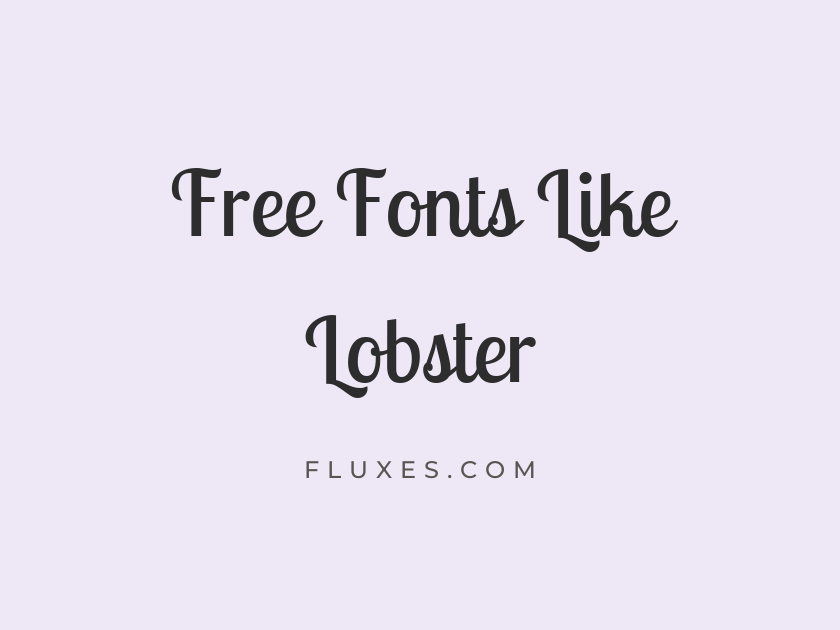
15 Best Free Fonts Similar to Lobster
Lobster became one of the most downloaded typefaces on Google Fonts for a reason: that bold, glossy, retro script feel works everywhere from coffee shop signage to wedding invitations to logo design. Its popularity is also its drawback. When a font shows up on every taco truck menu and Etsy banner, a project starts to look like everyone else’s. Finding free fonts similar to Lobster means looking for that same confident, connected script energy, the rounded retro warmth, without reaching for the exact same file every designer already has open.
The alternatives below cover a range of moods, from casual brush scripts to bold display faces with the same diner-sign charisma, so you can swap in something with a little more personality for your next project.
Lobster Two
The obvious place to start is the font’s own sibling. Lobster Two was drawn by the same designer, Pablo Impallari, with a slightly more refined, less blobby letterform structure and genuine italic and bold styles built in. If you love the original’s personality but need more flexibility across weights, this is the closest thing to a direct upgrade rather than a true alternative.
Pacifico carries the same sun-bleached, mid-century American vibe as Lobster but leans lighter and looser, originally inspired by 1950s surf culture signage. It reads friendly rather than heavy, which makes it a smart pick for branding that wants warmth without quite as much visual weight on the page.
Yellowtail is probably the nearest match in spirit: a bold, connected script with the same confident swing and rounded terminals. It sits a touch narrower and more casual than Lobster, which can actually make long headlines easier to fit into tight banners or product labels.
There’s an energetic, brush-pen looseness to Kaushan Script that gives it a more spontaneous, sign-painter feel than Lobster’s polished curves. It works well for anything that wants to feel handmade rather than manufactured, from bakery branding to event flyers.
Satisfy is lighter on the page and a little more relaxed, closer to genuine handwriting than a designed script. It won’t carry the same punch as Lobster in a big hero headline, but it pairs nicely as a secondary accent font under a bolder display face.
Rounded, soft, and slightly wobbly in the most charming way, Courgette feels like a cousin to Lobster that skipped the gym. It suits cozy, home-cooked branding, think farmhouse cafes and small-batch food labels, where a friendlier, less glossy script feels more honest.
Leckerli One
Leckerli One trades connected script strokes for a bold, bouncy, candy-shop letterform that still nods to the same retro playfulness. It reads clearly even at smaller sizes, which is where true script fonts like Lobster often start to blur.
Caution is worth a note here: like Lobster, several of these bold or connected scripts can turn muddy in body text or tiny UI labels. Save them for headlines, logos, and short punchy phrases, and let a clean sans-serif carry the paragraphs.
Grand Hotel has a vintage postcard quality, all curling flourishes and old Hollywood glamour. It shares Lobster’s nostalgic pull but points toward a more elegant, 1930s resort feel rather than a diner counter.
Merienda
Merienda in its bold weight is chunky and rounded in a way that echoes Lobster’s density, but the letterforms feel more compact and toy-like. It holds up nicely in badges, stickers, and packaging where you need a script that survives being shrunk down.
Sriracha has a marker-drawn casualness with just enough weight to hold a headline together. It skews playful and street-food friendly, a solid pick when Lobster feels a bit too smooth and corporate-safe for the brand.
Bad Script
This one leans fully into imperfect, ballpoint-pen handwriting rather than a designed script face. Bad Script is best used sparingly, as a signature-style flourish or a personal note treatment, rather than as a full headline replacement for Lobster.
Permanent Marker swaps script curves for the blunt, felt-tip energy of a hand-lettered sign. It shares Lobster’s bold confidence and legibility at large sizes, making it a strong choice for promotional graphics and social posts that need to grab attention fast.
Boogaloo brings a rounded, bouncy retro display letterform that channels the same era as Lobster without being a script at all. It’s a good option when you want that vintage diner attitude but need something that stays crisp in all caps.
There is no single one-to-one replacement for Lobster, but that is part of the appeal of exploring alternatives. Each of these fonts carries its own flavor of retro charm, so it is worth testing a few directly in your layout to see which script or display face actually fits the mood of your brand.